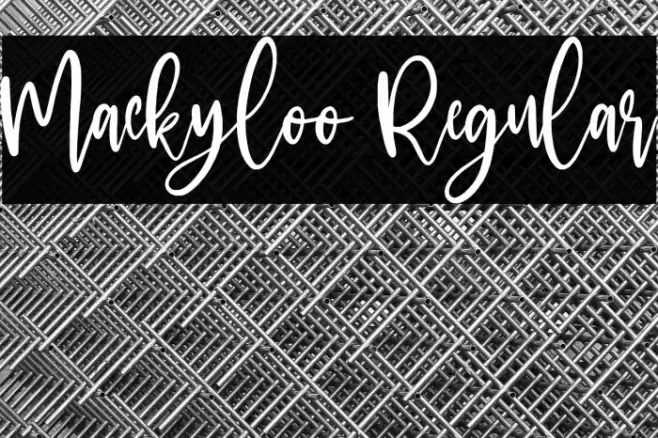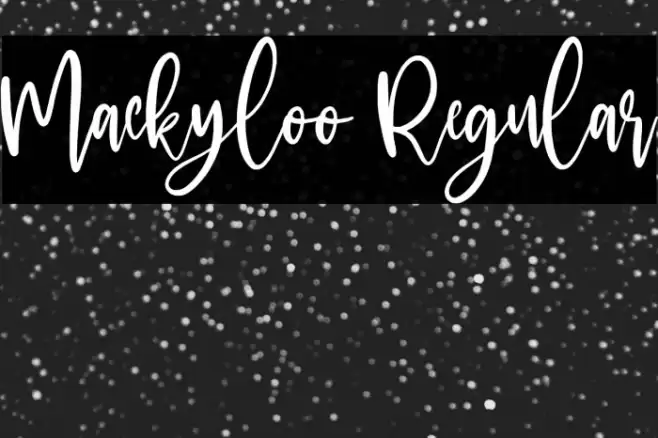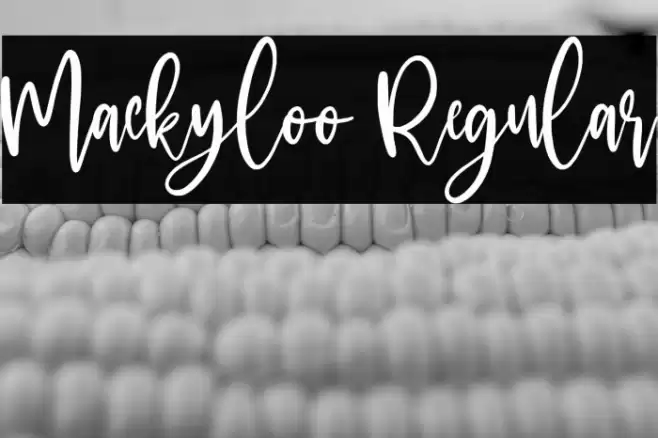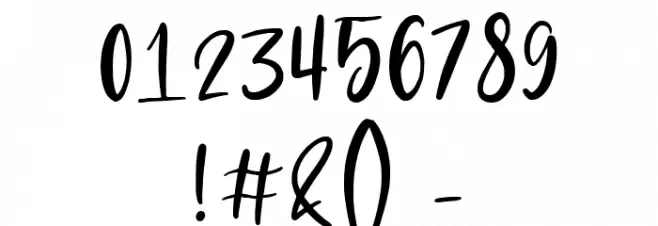
Mackyloo Regular Font
Mackyloo Regular Description
This font features a lively and energetic handwritten style, characterized by its fluid and connected letterforms. The uppercase and lowercase letters maintain a consistent flow, with a playful and casual appearance. The strokes are bold and expressive, with varying thickness that adds a dynamic quality to the text. The numbers and special characters follow the same energetic style, making the font versatile for creative projects. Its overall aesthetic is both modern and approachable, suitable for a variety of design needs.
A lively handwritten font with bold, expressive strokes and a modern, playful style from Regular fonts.
- Proposed Projects: Ideal for greeting cards, invitations, branding, social media graphics, and personal projects that require a touch of personality.
- Overall Style: Modern, Decorative
- Use Case: Logos, Headlines, Social Media Graphics